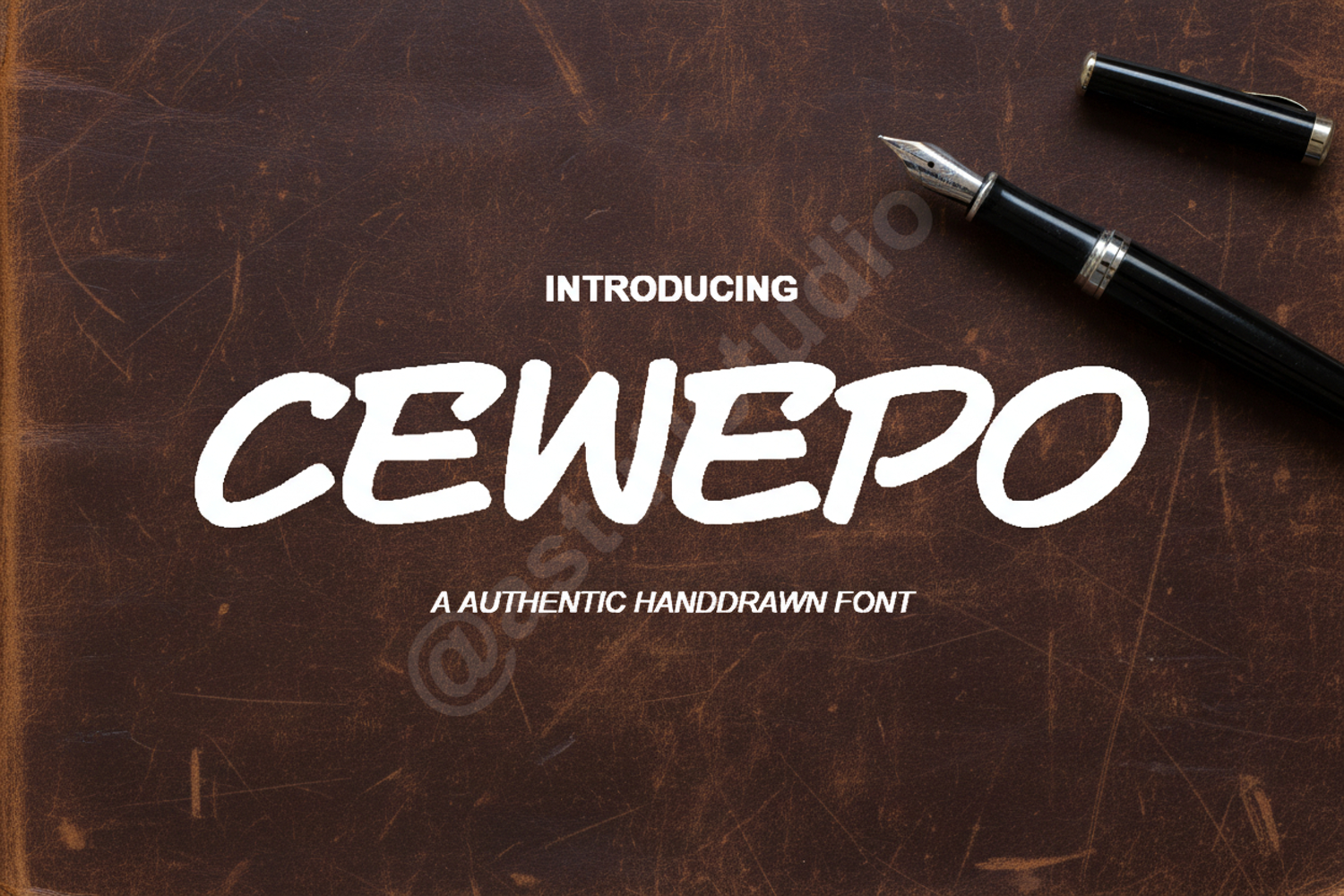
Cewepo - Modern Elegant Display Serif
Cewepo
Cewepo is a premium display serif font that embodies modern elegance and timeless sophistication. Designed with precision, this typeface features clean lines and unique character shapes that make it stand out in any high-end project. Whether you are aiming for a luxury aesthetic or a clean minimalist look, Cewepo provides the versatility needed for professional results.
- Luxury Branding and Identity
- Editorial Design and Magazine Layouts
- Wedding Stationery and Invitations
- Social Media Graphics and Quotes
- High-end Packaging and Logo Design